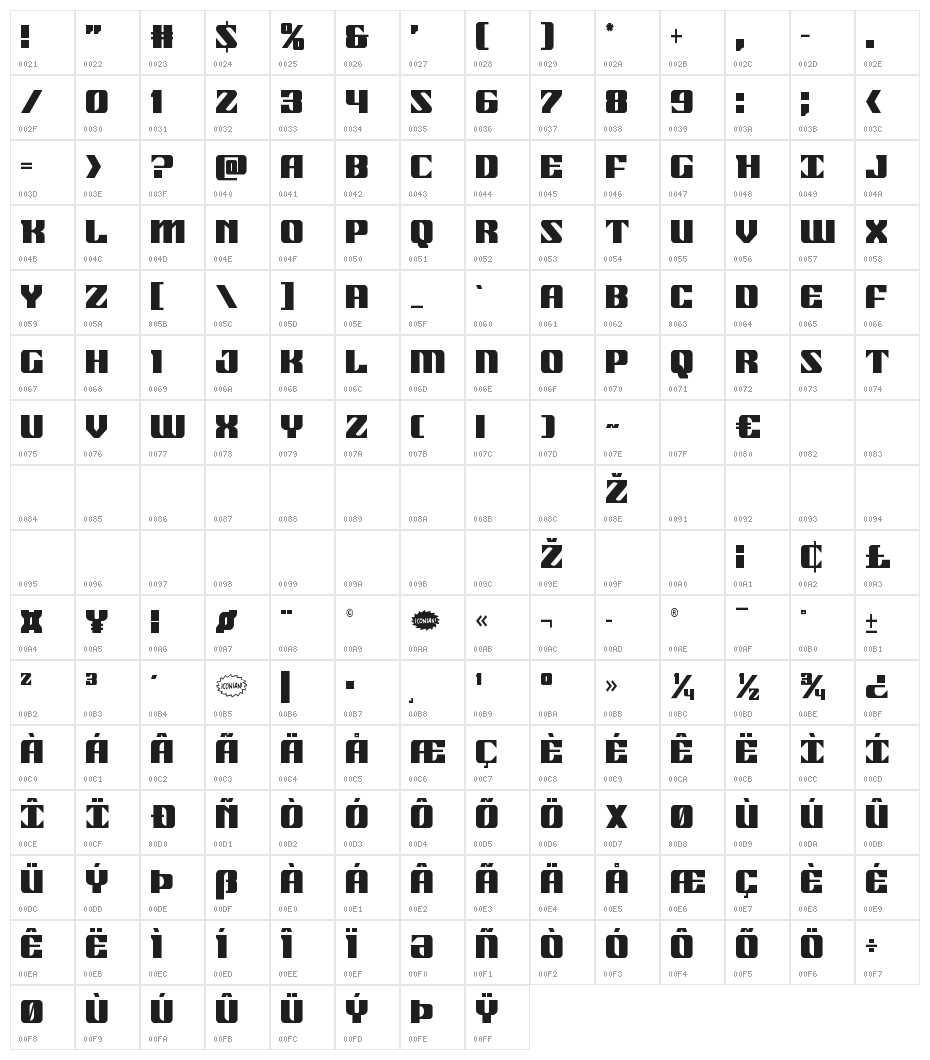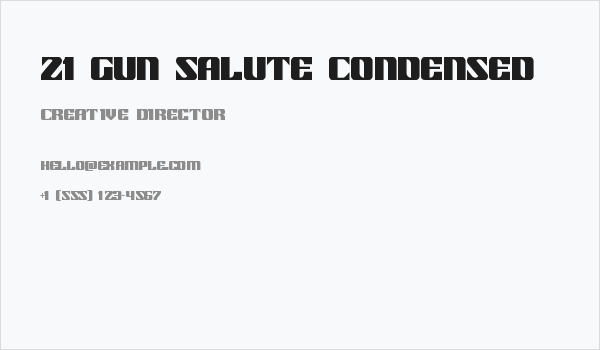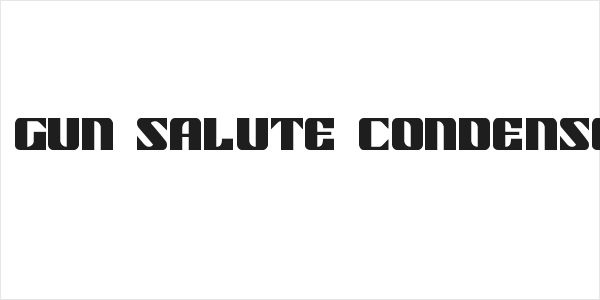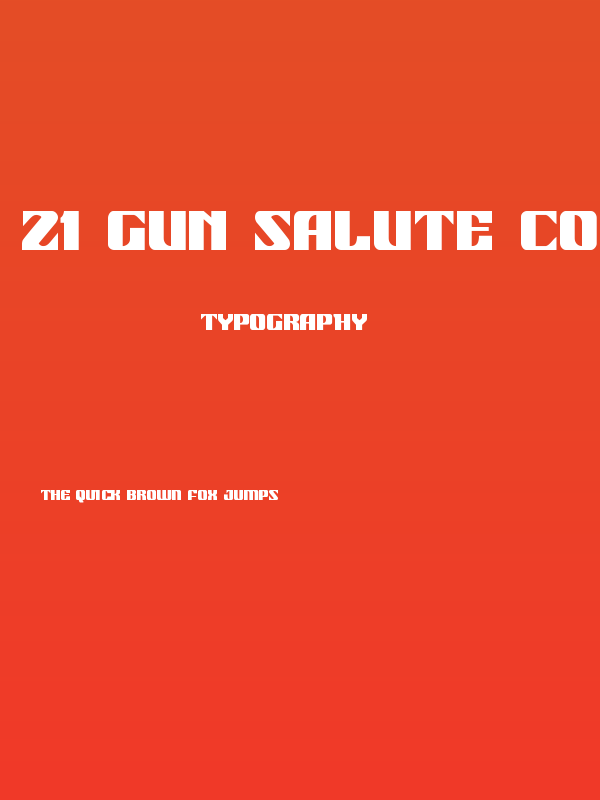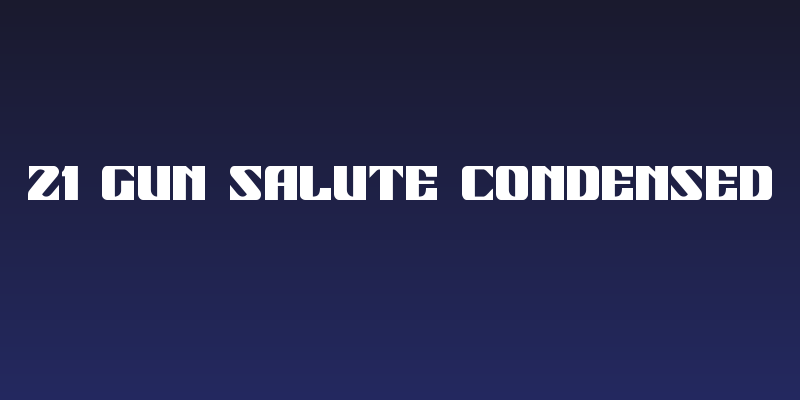
21 Gun Salute Condensed Font
21 Gun Salute Condensed Description
This font features a bold and striking design with a condensed width, giving it a powerful and impactful appearance. The characters are crafted with sharp, angular edges and a geometric style, creating a modern and dynamic look. The uppercase letters are particularly prominent, with a strong presence that commands attention. The numbers and special characters maintain the same boldness and angularity, ensuring consistency across the font. This typeface is ideal for projects that require a strong visual impact, such as posters, headlines, and branding materials.
| Proposed Projects | Ideal for posters, headlines, branding materials, and any project needing a strong visual impact. |